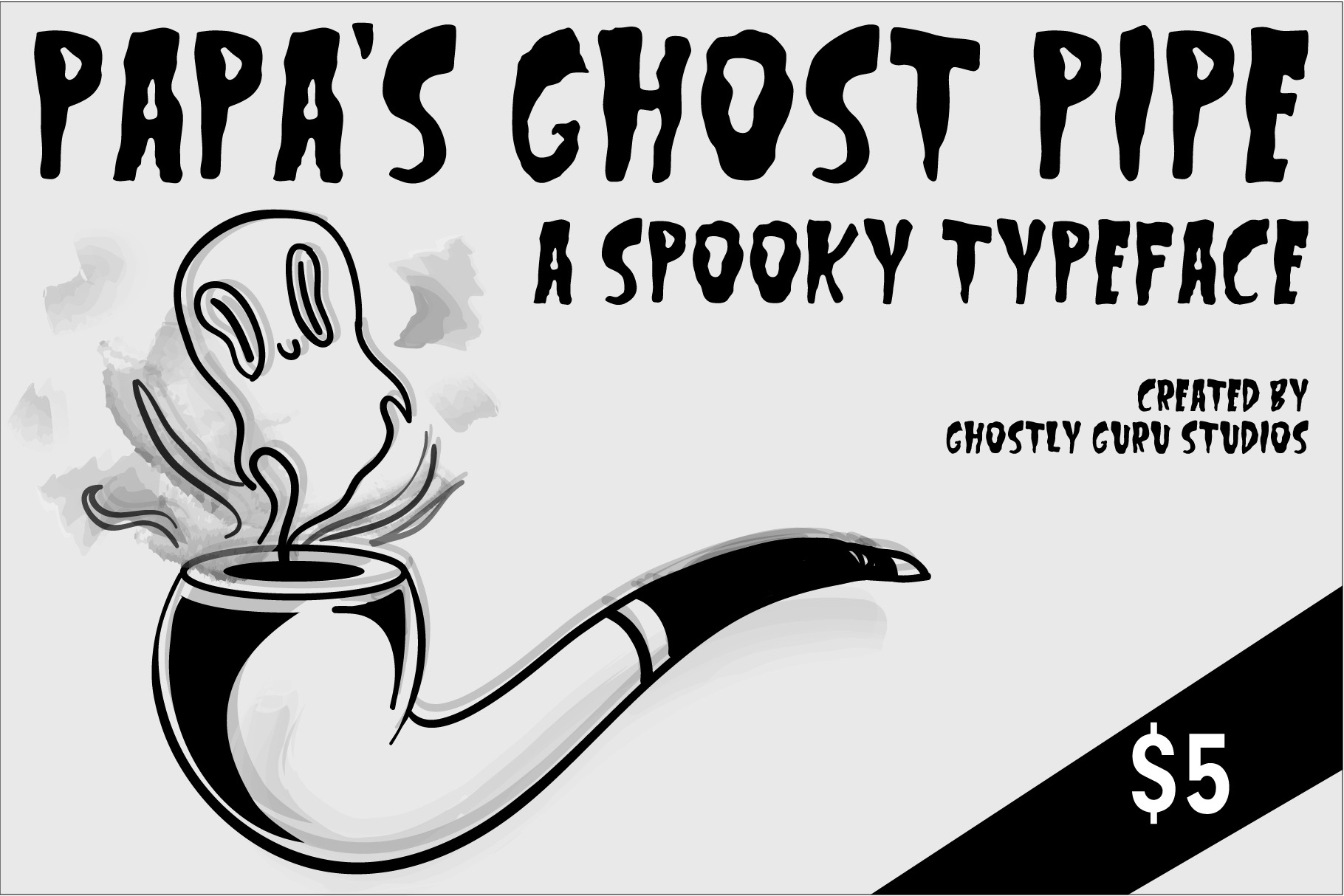
Papa's Ghost Pipe - Typeface
Papa's Ghost Pipe - A Spooky Typeface!
"Papa left you his pipe when he died.. little did you know it was haunted with the spirit of his intellect!"
Description: Here's a spooky typeface perfect for those halloween invitations, spooky designs and etc... Enjoy! Details: This is an all-caps typeface w/ some symbols also included.